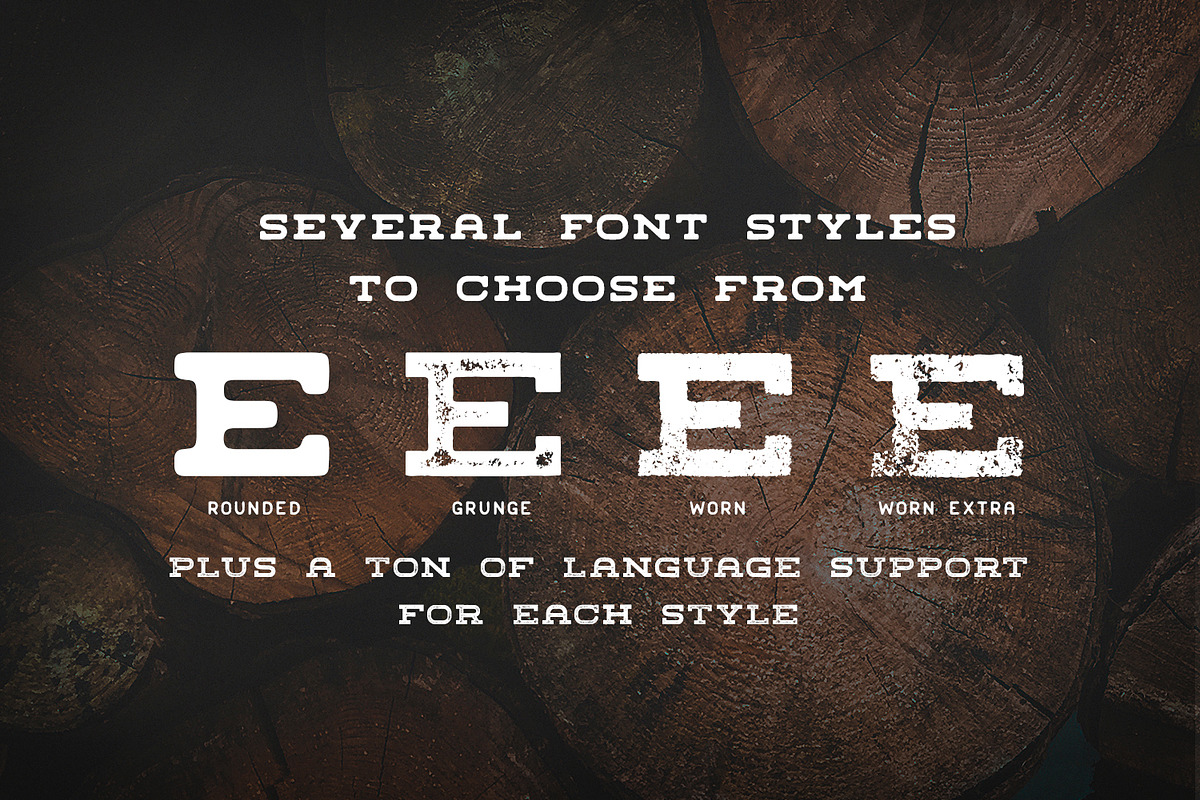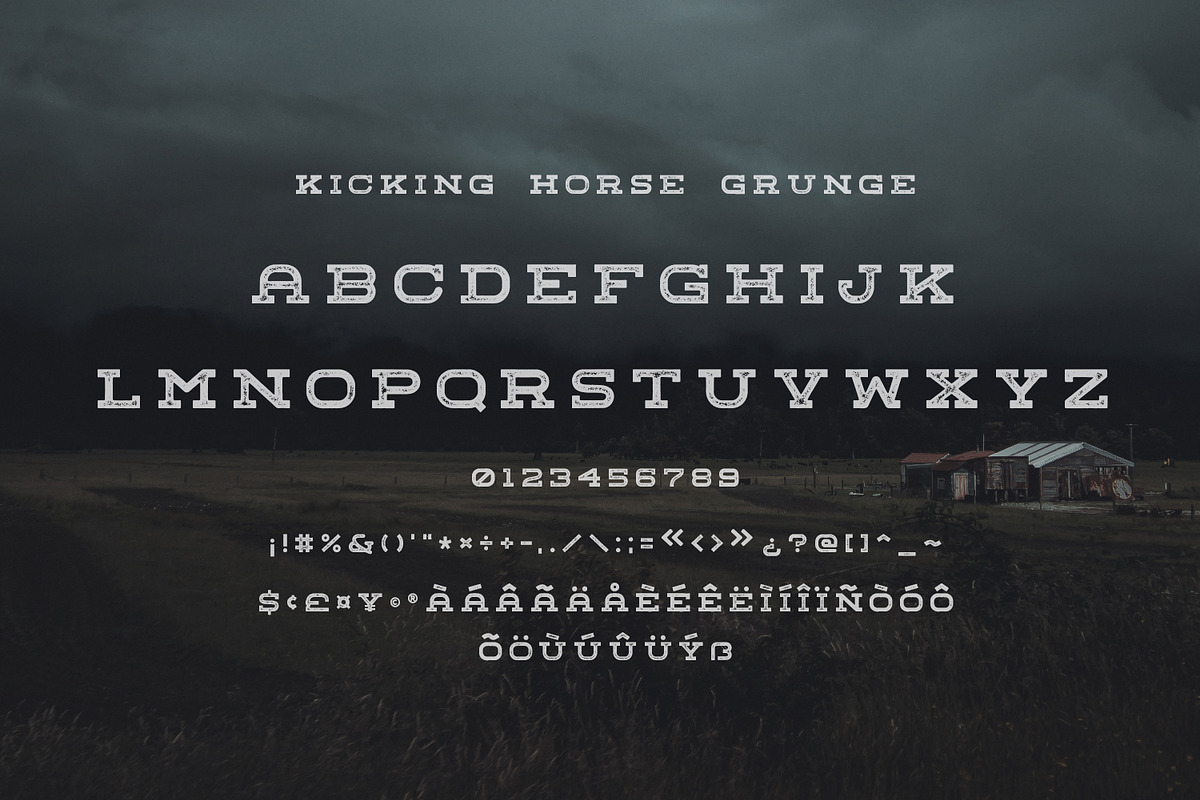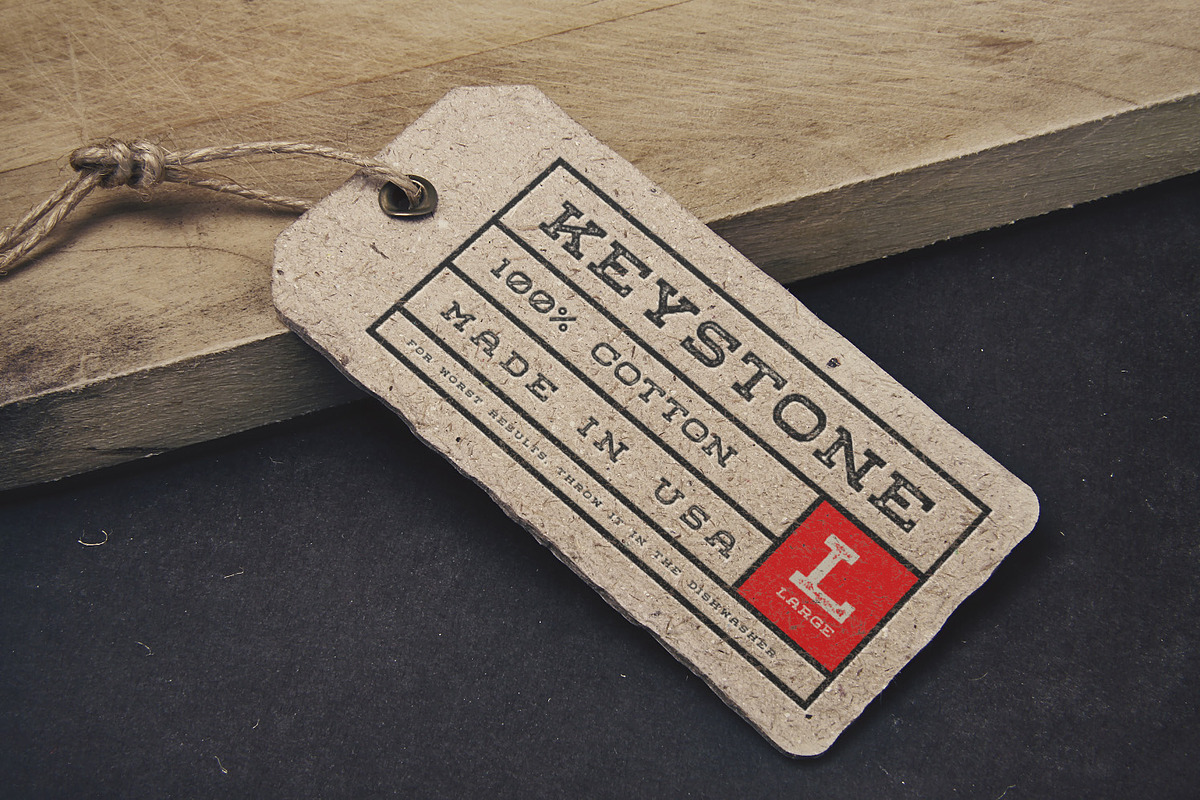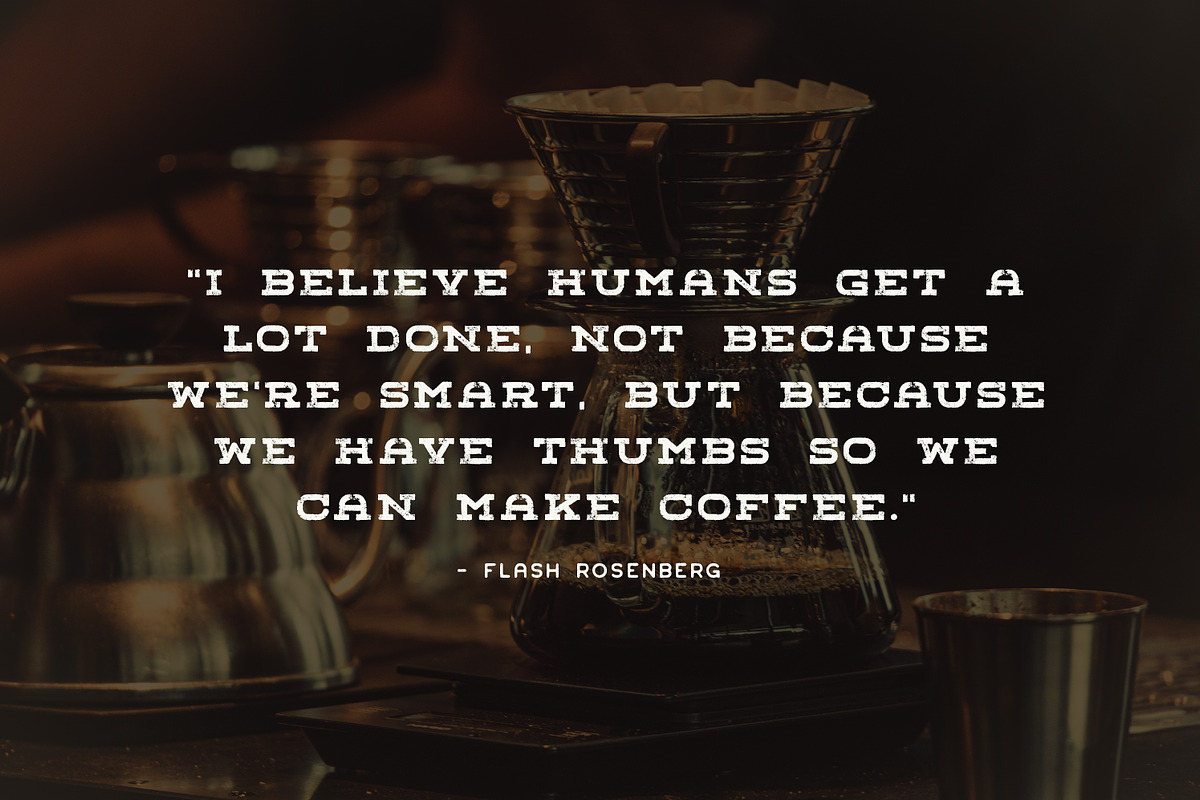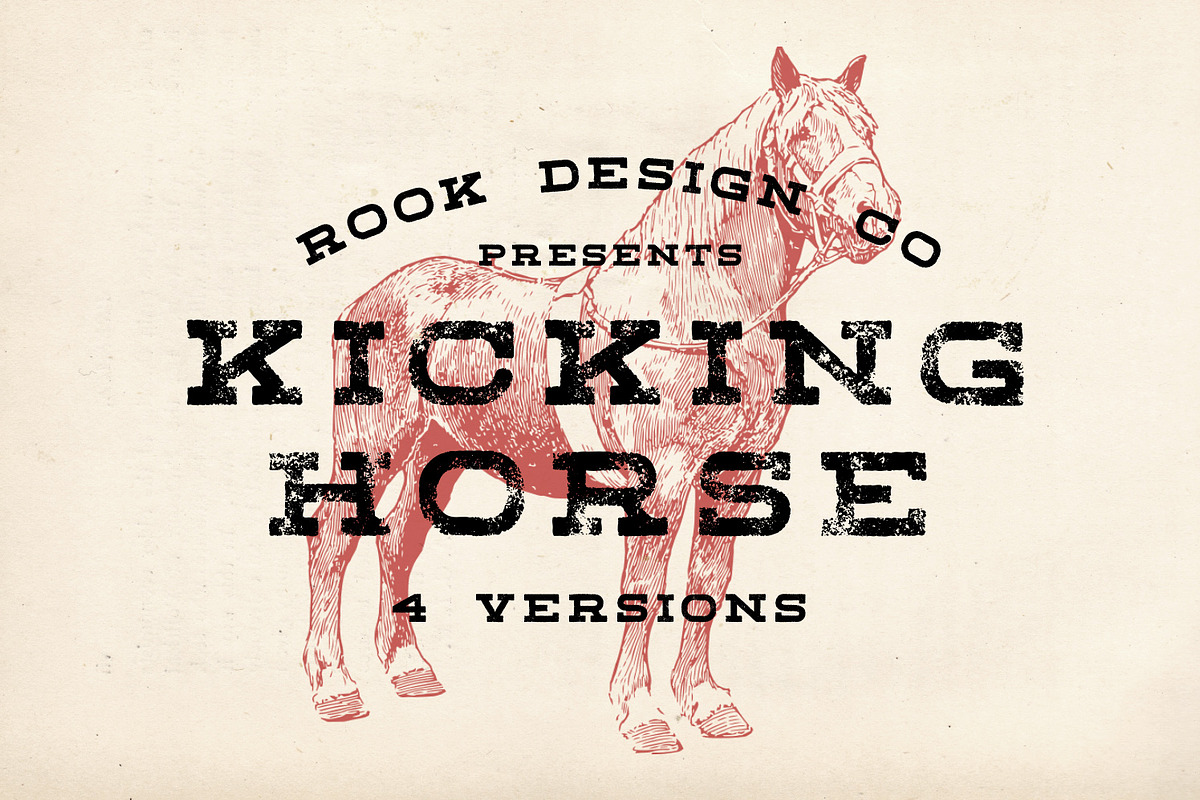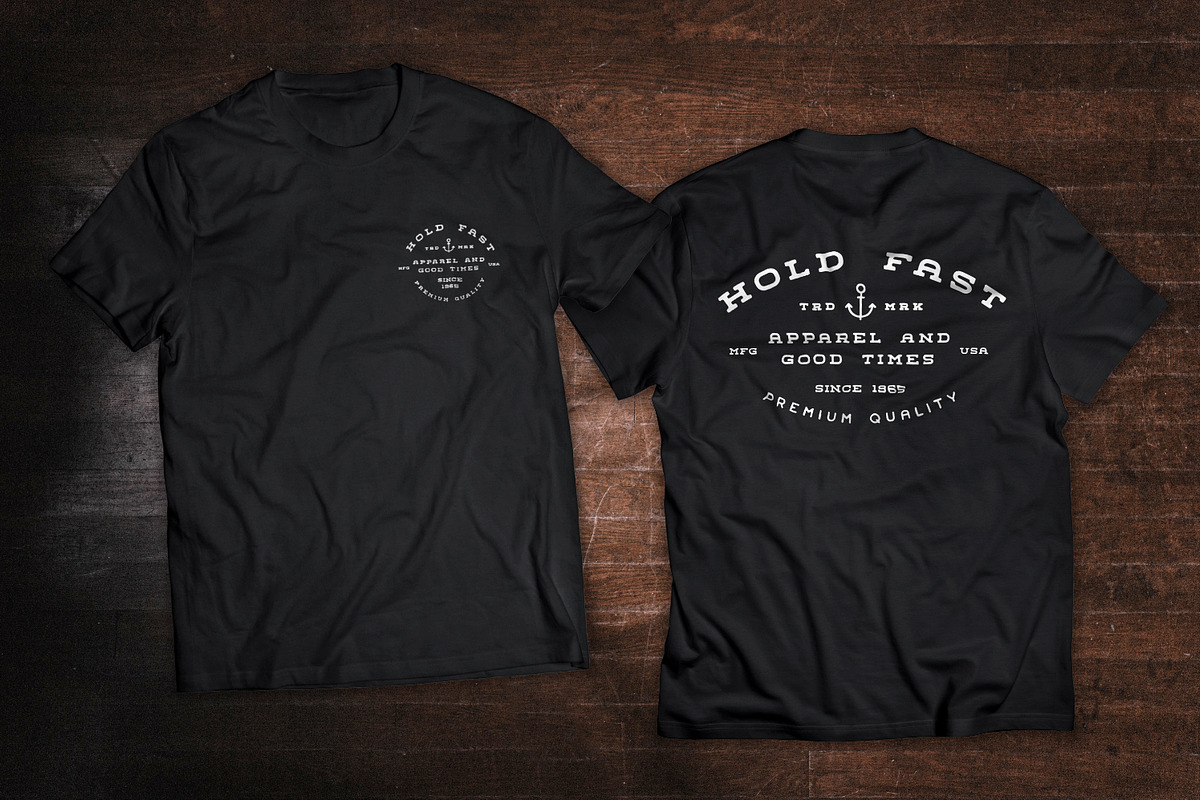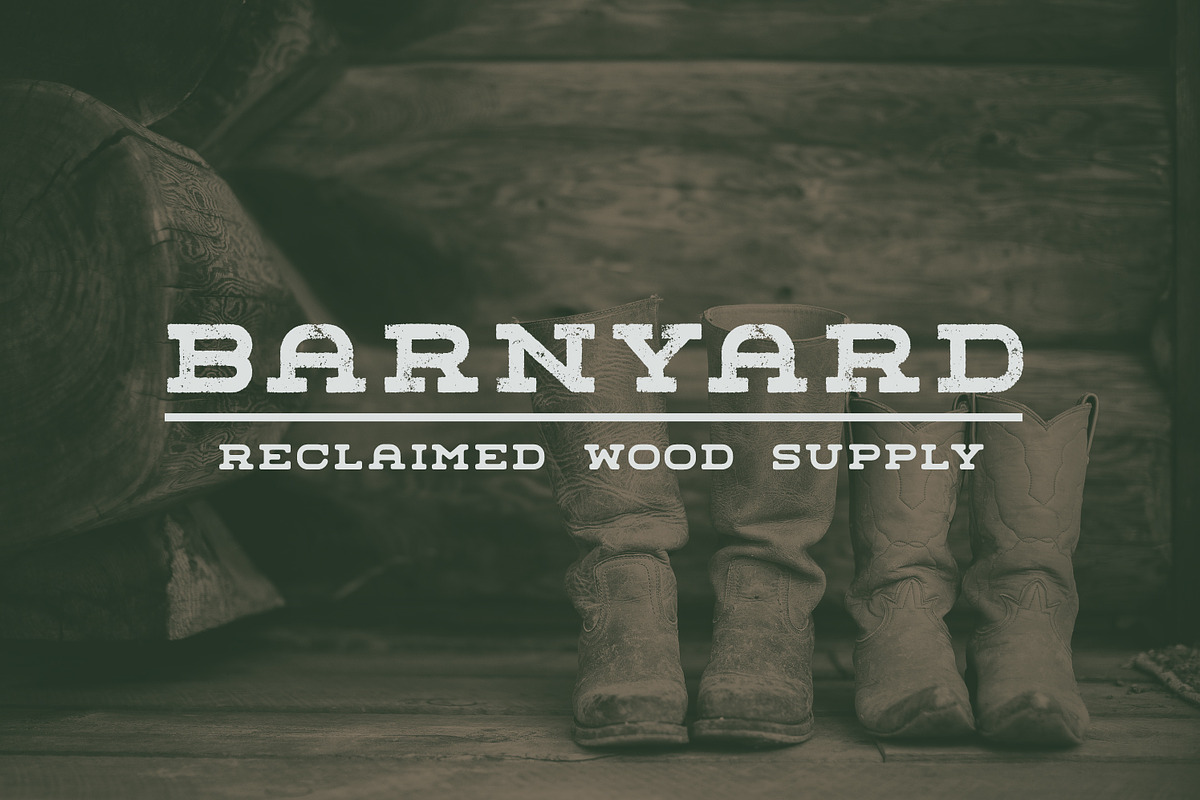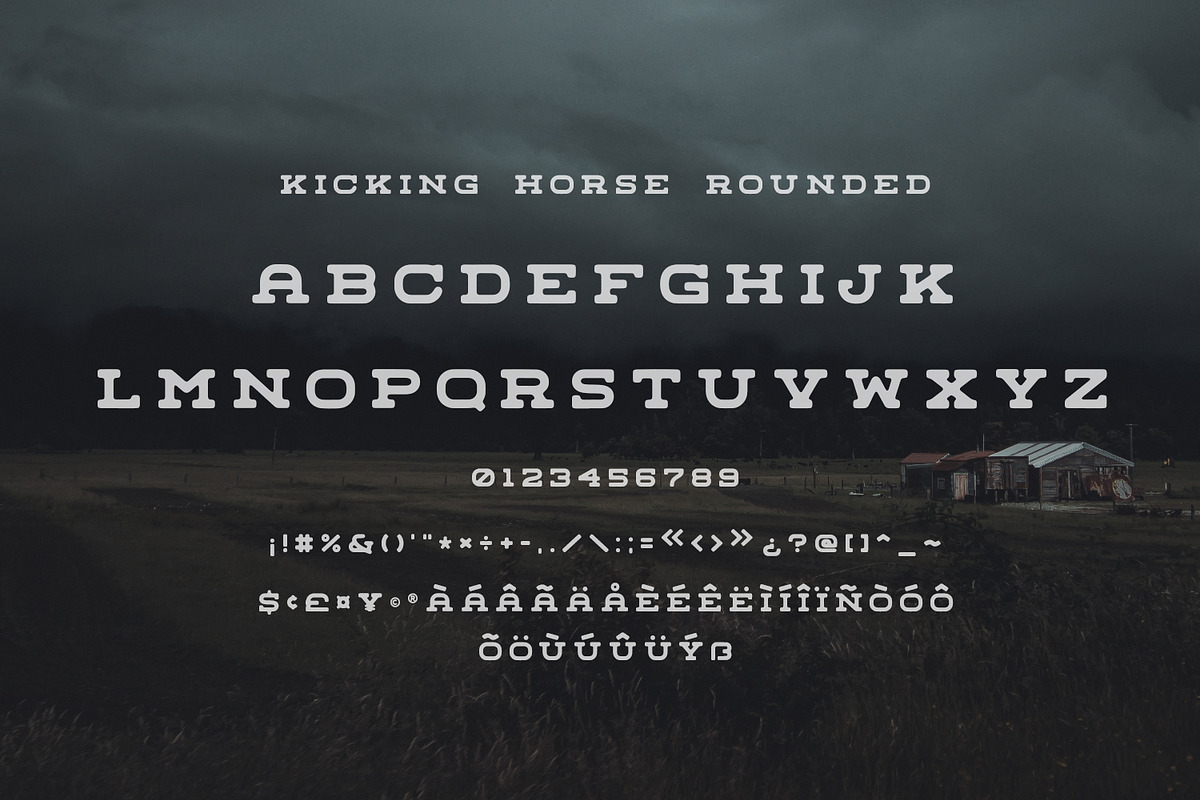
Kicking Horse - 4 Font Family
Kicking Horse - 4 Font Family by Greg Nicholls is a font selected for branding, posters, packaging, typography.
- The characters in Kicking Horse are wider than your average font, which is great for a well rounded font arsenal.
Why Kicking Horse - 4 Font Family is worth a look
Kicking Horse - 4 Font Family by Greg Nicholls fits naturally into Branding, posters, packaging, typography.